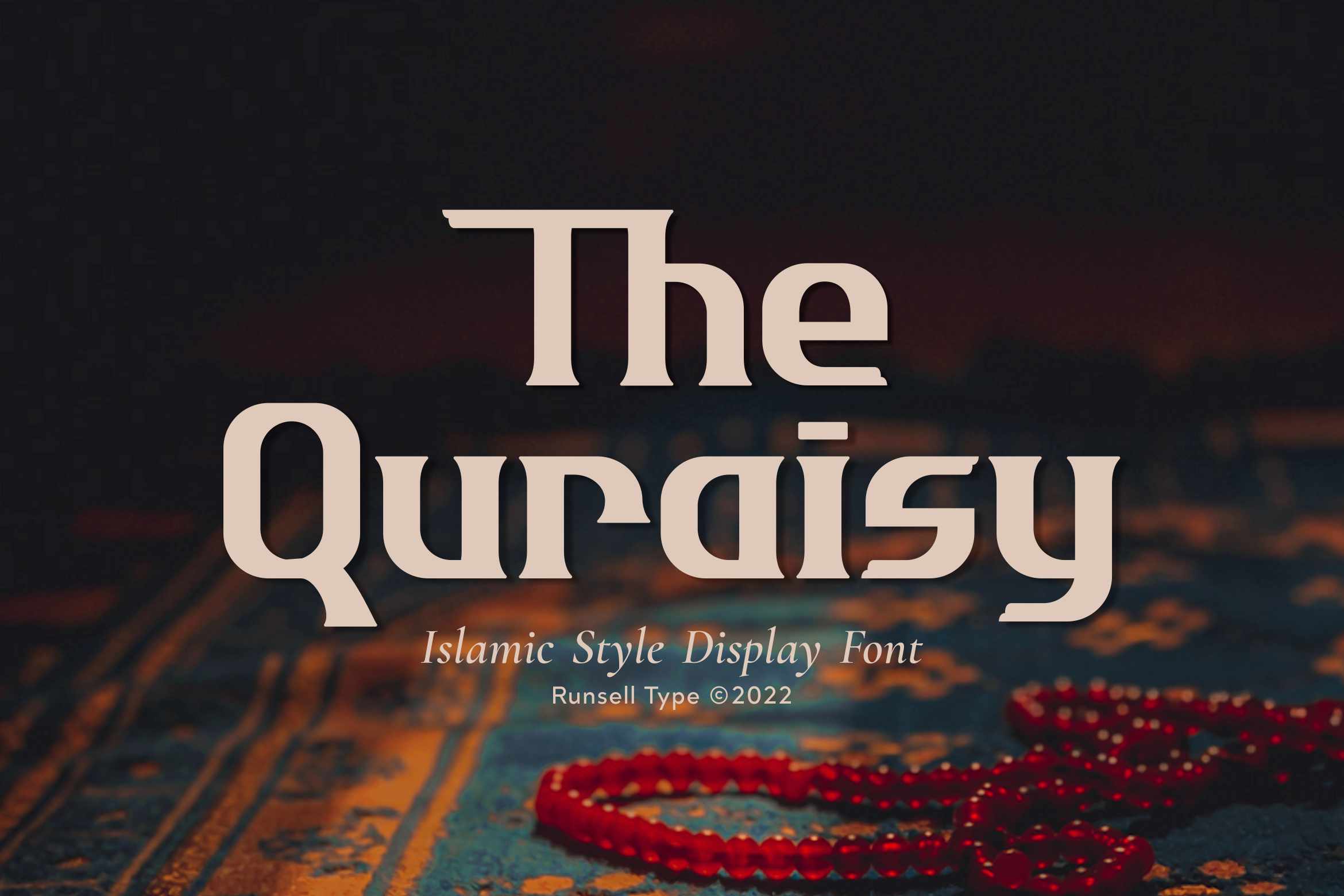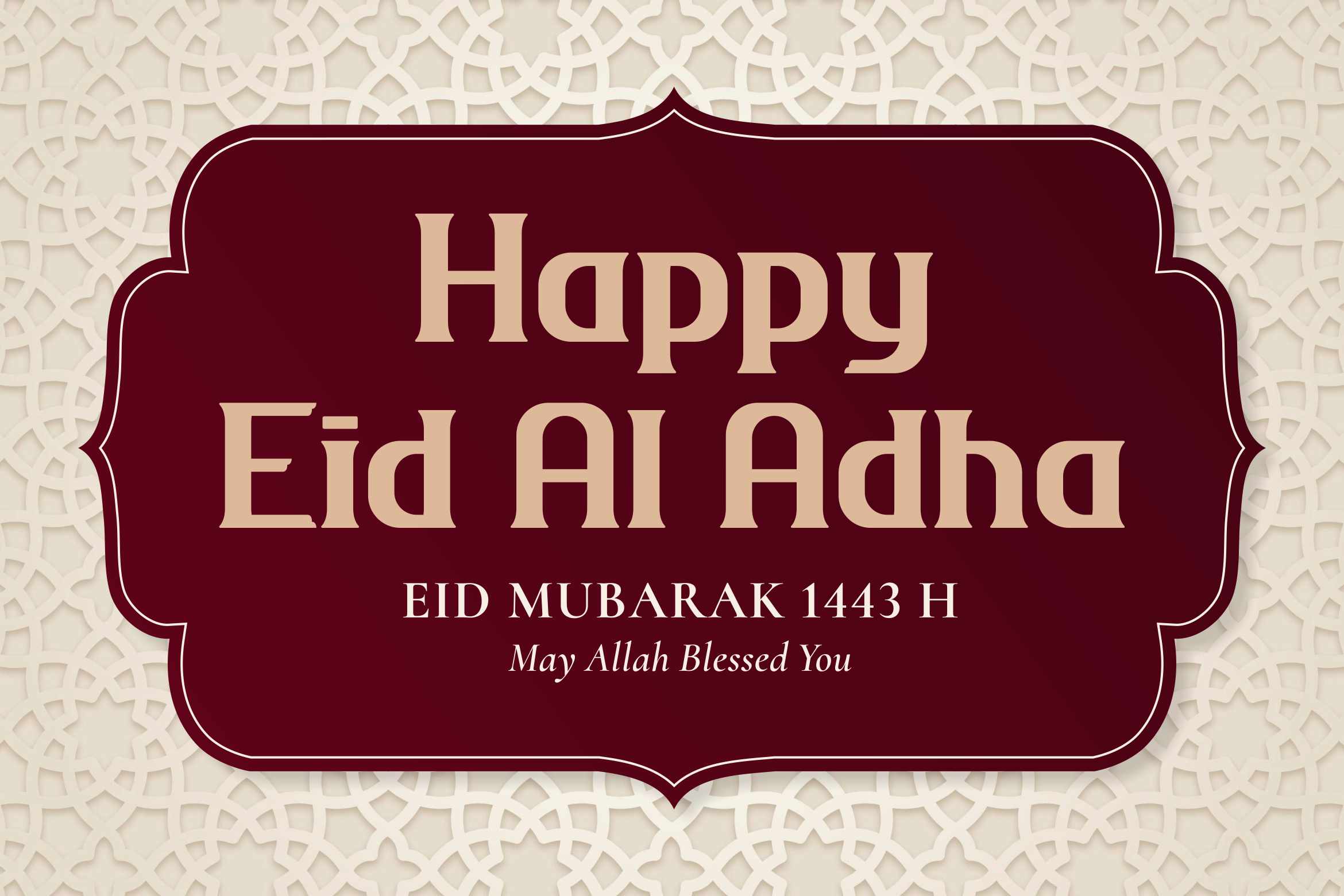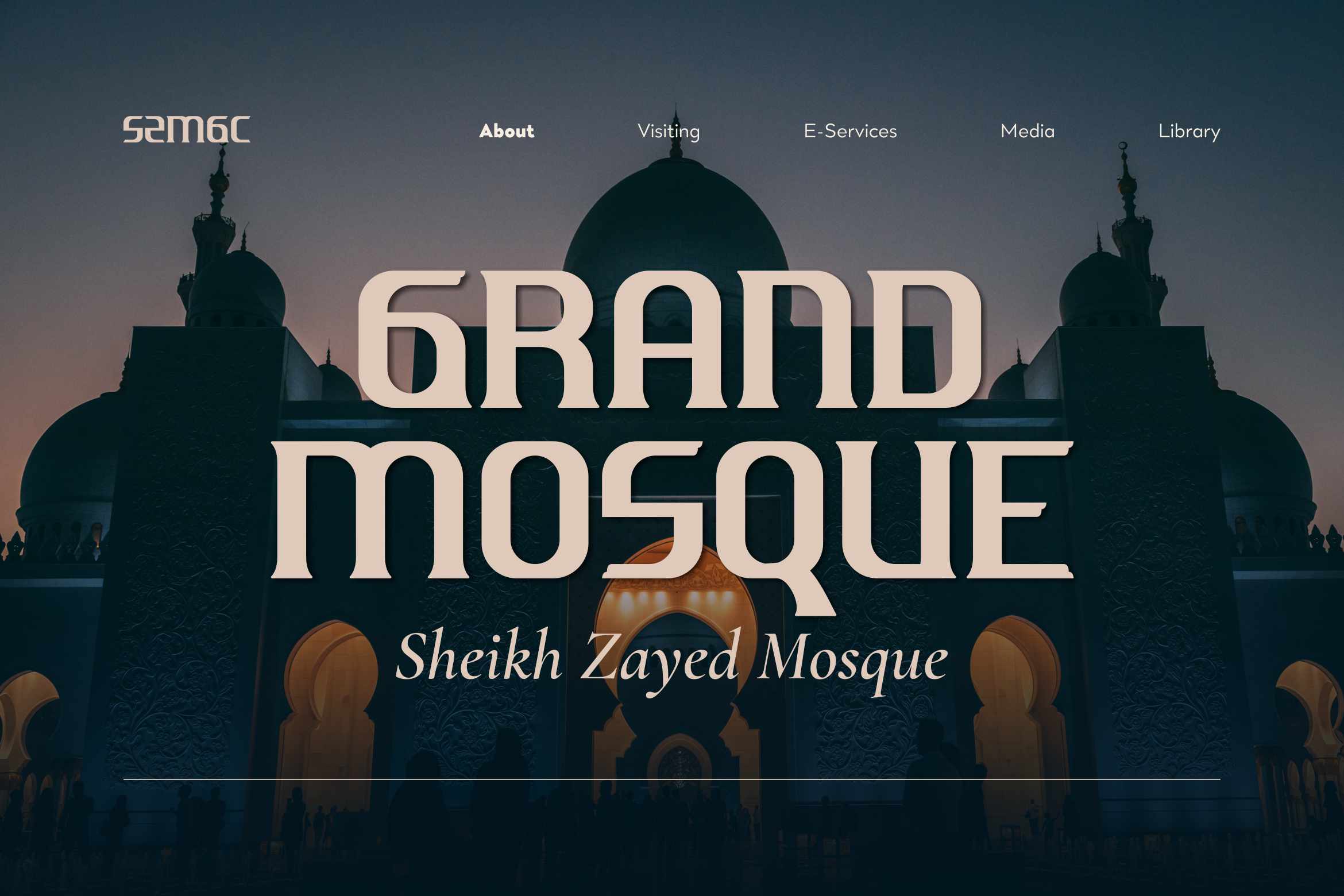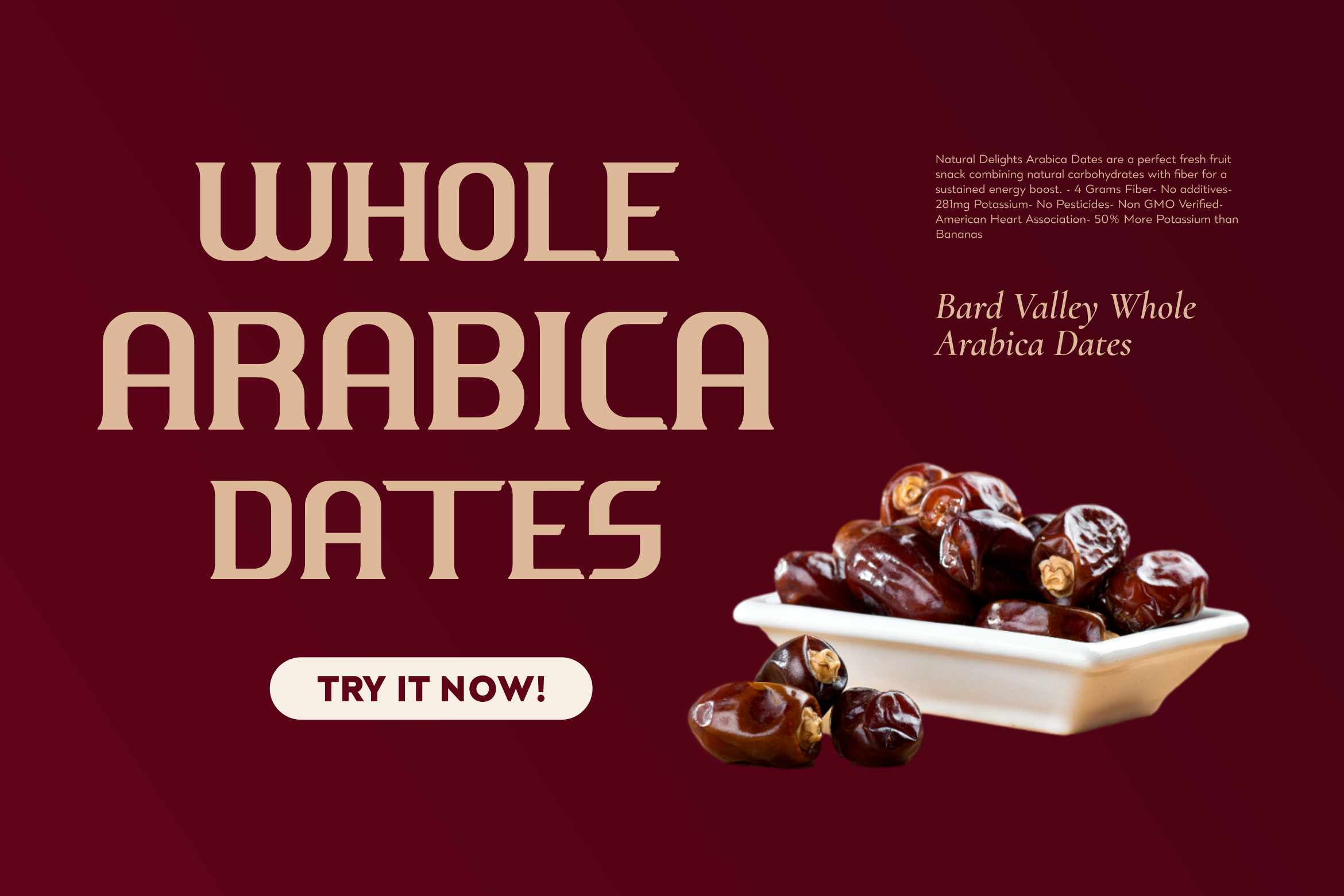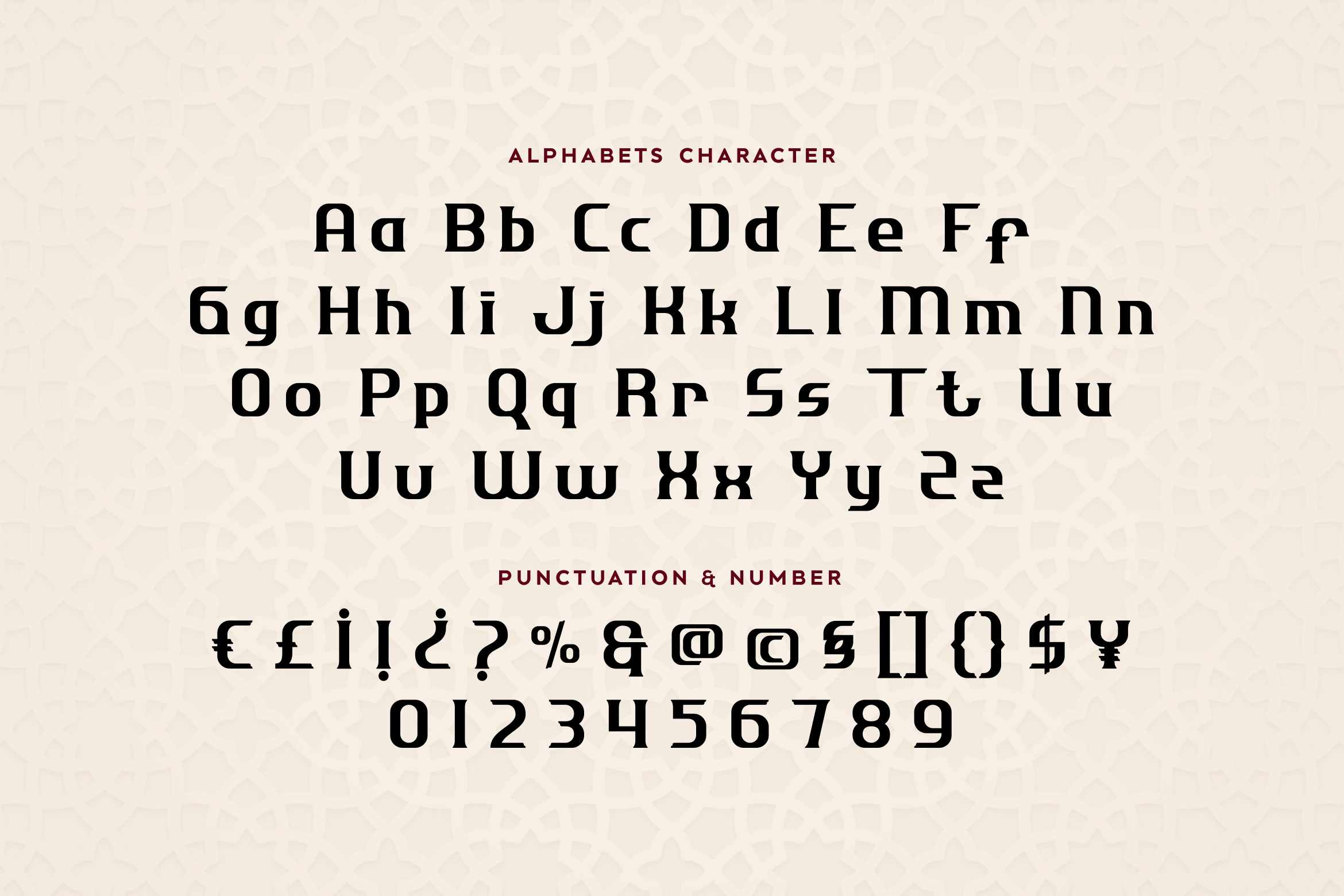
The Quraisy is a bold and refined display font designed with a distinct Islamic aesthetic. Its letterforms incorporate subtle curves and sharp terminals, evoking Middle Eastern architectural influence while maintaining modern legibility. This font is perfect for branding, religious events, product packaging, or signage that requires a cultural and spiritual touch. The thoughtful blend of classic proportions with unique stylistic cuts gives Quraisy an identity that stands out while remaining respectful and elegant.
With multilingual support, punctuation, and numerals, The Quraisy offers functional versatility across both Latin and non-Latin scripts. Its clean composition makes it ideal for Eid greetings, mosque banners, halal product branding, or educational material related to Islamic culture. Whether used for solemn events or celebratory moments, The Quraisy brings an air of dignity and tradition to every project.
The Quraisy